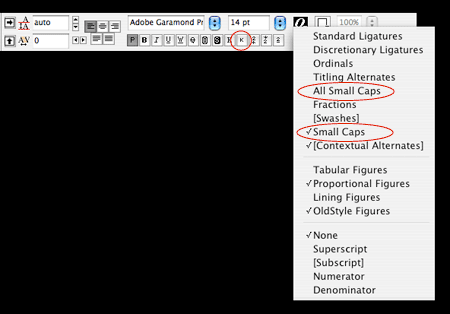
Curly Quotes Clarification
Q. I was taught that smart quotes had to be “curly” to be “smart,” but I see many typefaces from reputable foundries with quotation marks that aren’t curly. Why is that?
A. I’m afraid you’ve been misinformed, although I do understand the confusion. Smart quotes, or typographer’s quotes, do not have to be of the curly variety. True typographer’s quotes come in several flavors: Some are curly and some are chiseled; some are top-weighted, while others are bottom-weighted; some are angled in the same direction, some are angled in opposition. The uniting factor is that they all look different from the font’s inch and foot marks (also called primes), which are usually simple, vertical marks (Figure 1).
Figure 1. Smart quotes come in many shapes and sizes, such as these in the left-hand column, set in Adobe Chaparral Pro, Monotype Rockwell, ITC Galliard Pro, Terminal Design Giacomo 2.0, and ITC Adderville. Dumb quotes (right-hand column) are really inch and foot marks and aren’t sensitive to the font’s design.
Headline Alignment
Q. When laying out catalog spreads, is it best to have headlines center justified, left justified, or right justified?
A. To answer your question, I first need to clarify what you mean by “center justify.” In print as well as in most design software, justified refers to text that is aligned on both the right and left margin, which is achieved by adding or removing space between characters and/or words. Center justified means that the last line of a justified paragraph is centered with no altered spacing. I suspect that you mean center-aligned type, which is centered but doesn’t stretch or squeeze any spaces.
Headlines in print are commonly either center aligned (not justified) or left aligned. A left-aligned heading is a bit more formal and conservative than centered, but which treatment you choose is really a question of taste, not a matter of right or wrong. The difference in readability between these two treatments is negligible in a headline, which tends to be brief (Figure 2).
Figure 2. Headlines look best set flush left or centered (upper and center). Avoid justifying them (bottom), which distorts the spacing and reduces readability. Set in TerminalDesign Giacomo 2.0.
But if you’re referring to true justification, I would stay away from it in a headline, as the distortion to the spacing reduces readability and is considered in poor typographic taste, particularly when applied to upper and lower case.
Having said that, the typeface and treatment of a headline have a greater impact on readability and legibility than the alignment alone.
Amp Up the Ampersands
Q. I love the ampersand symbol. When is it appropriate to use?
A. The ampersand (&) is an abbreviation of the word “and.” It can be quite beautiful, especially in fonts that have unusual, decorative, or ornate versions (Figure 3). Unfortunately, due to their visual appeal they’re overused, often incorrectly so.
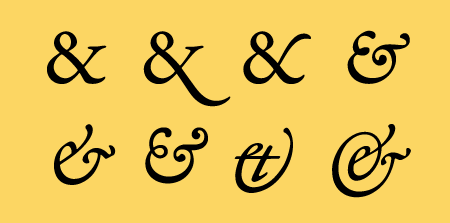
Figure 3. Adobe Garamond Premiere Pro has a wide variety of ampersands.
I advise using ampersands in headlines and titles, as well as in logos, company and business names (for examples, law firms and other partnerships), and where it’s a graphic element that’s part of an identity or branding (Figure 4). Do not use ampersands in running text; for example, “We talked about this & that.” However, the rules can vary for languages other than English.
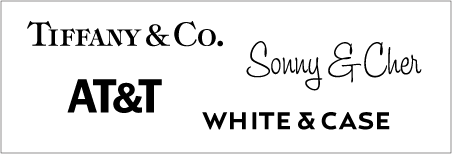
Figure 4. These logos illustrate several appropriate and effective usages of the ampersand. Set in ITC Tiffany, House Industries Ed Script, ITC Franklin Gothic, and Font Bureau Relay Wide.
Small Cap Confusion
Q. I’m confused about the best way to access the true small caps in some OpenType fonts.
A. Many OpenType fonts have true-drawn small caps — a real godsend to designers who like to finesse their typography. Here’s how to access those glyphs in InDesign and QuarkXpress:
InDesign CS3 has two options for converting text to small caps, but they each behave differently, so pay close attention (Figure 5).
Figure 5. InDesign has two options for converting text to small caps.
Select the text you want to set in small caps, then go to Window > Type & Tables > Character and choose one of the following two methods:
1. Click the Character palette’s fly-out menu and select Small Caps. This will convert only the lowercase in selected text to small caps — either the true-drawn ones that are available with some OpenType fonts, or fake, scaled-down ones for fonts that don’t have the real thing. It will leave the caps unconverted.
2. Click the Character palette’s fly-out menu and select OpenType > All Small Caps. This command is available only for OpenType fonts that come with true-drawn small caps, making it impossible to wind up with the fake variety. However, it does convert all characters in selected text to small caps, including the full caps.